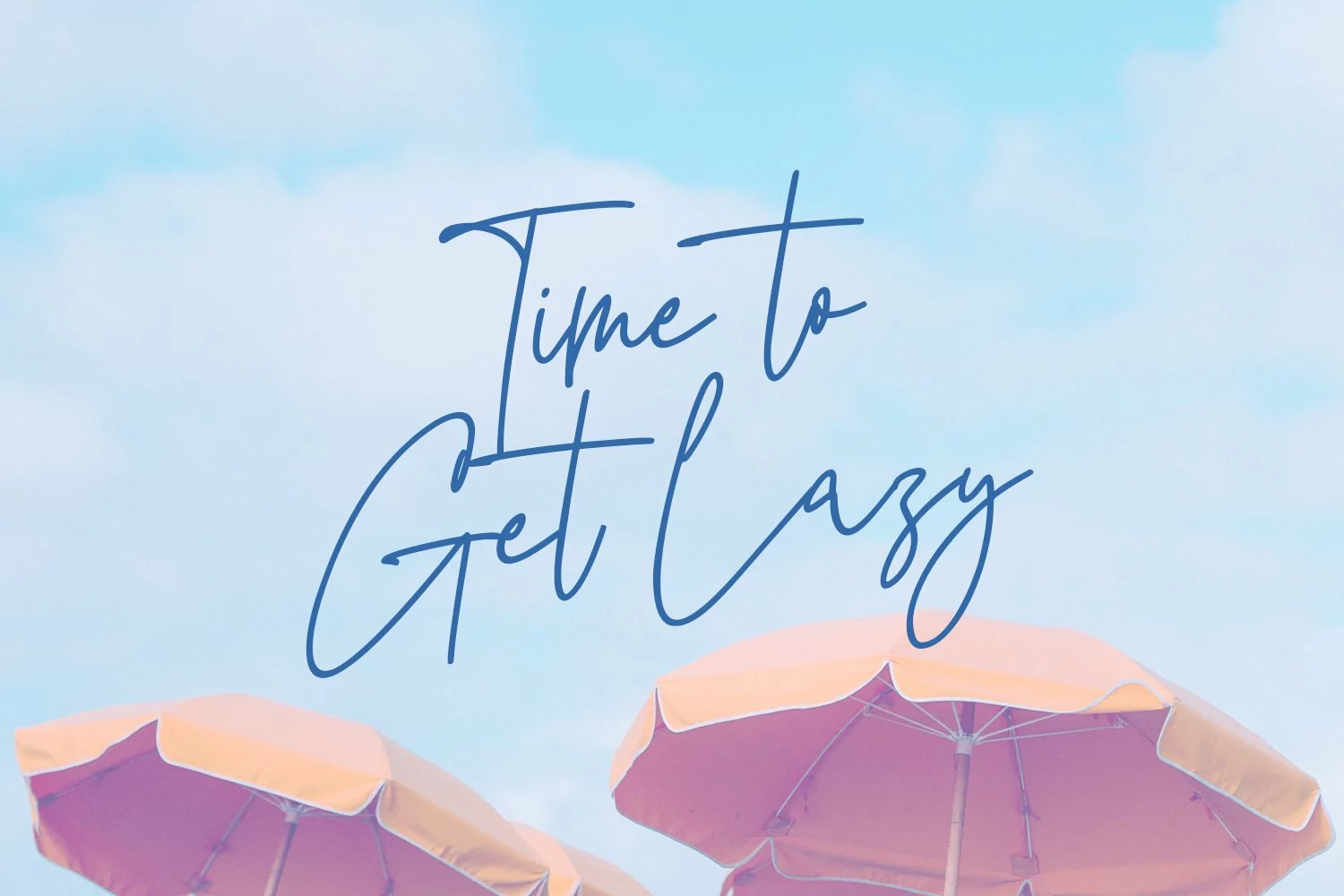
Smilysundays is a signature script font, with light mono-line stroke, slanted and fun character. It has Opentype features ligatures of character, To give you an extra creative work. Smilysundays signature script font support multilingual more than 100+ language. This font is good for logo design, Social media, Movie Titles, Books Titles, a short text even a long text letter and good for your secondary text font with sans or serif. Make a stunning work with Smilysundays font.